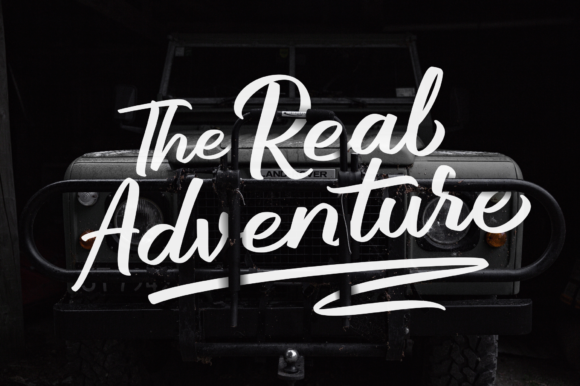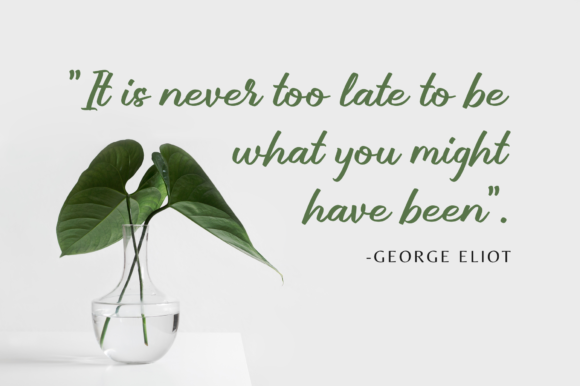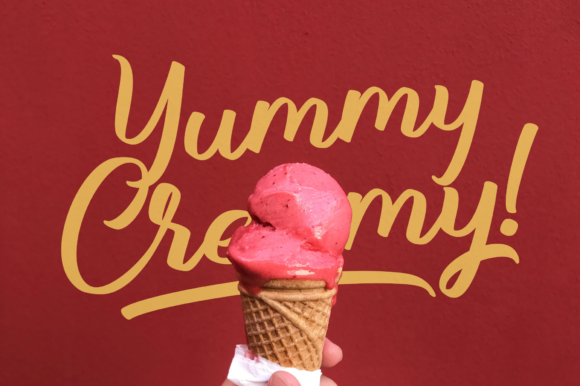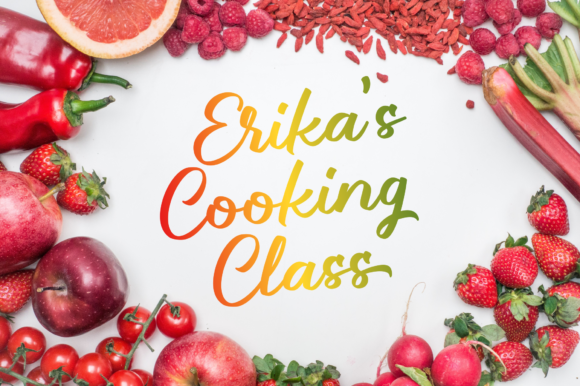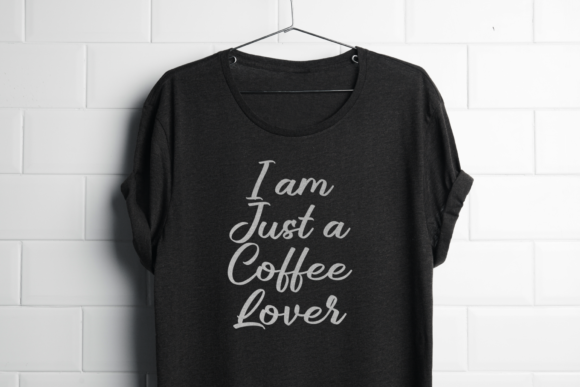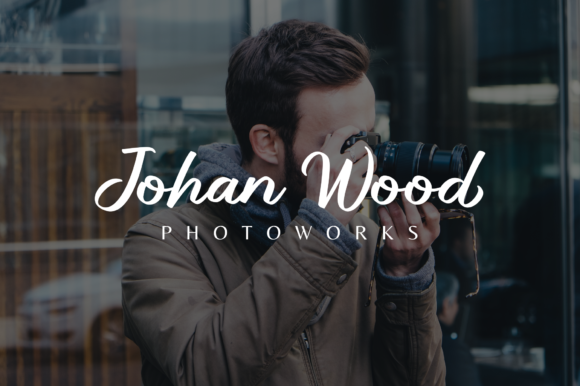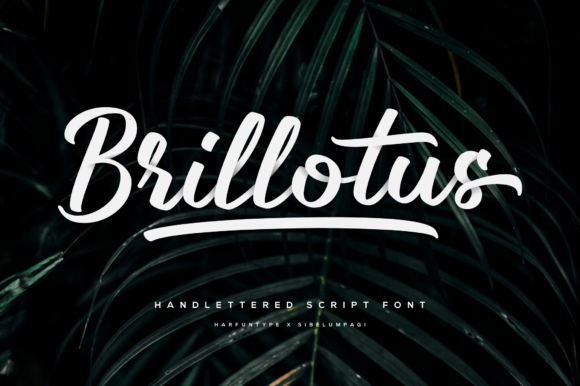
Introducing Brillotus Font: The Perfect Handwritten Touch for Your Designs
Are you tired of using the same old fonts in your designs? Do you want to add a personal touch that sets your work apart from the rest? Look no further than Brillotus Font, a stunning handwritten font that brings a unique and authentic feel to any design idea. In this article, we’ll dive into the features and benefits of Brillotus Font, and explore how it can elevate your designs to the next level.
Handwritten fonts have a way of adding a personal touch to any design. They evoke a sense of warmth, friendliness, and approachability that can be hard to achieve with more traditional fonts. Brillotus Font is no exception, with its beautiful, hand-crafted lettering that is sure to capture the attention of your audience. Whether you’re working on a branding project, a marketing campaign, or simply a personal craft project, Brillotus Font is the perfect choice for adding a touch of personality and whimsy.
What Sets Brillotus Font Apart
So what makes Brillotus Font so special? For starters, its unique and authentic feel sets it apart from more generic fonts. The lettering is carefully crafted to have a personal, hand-written feel that is both elegant and approachable. Additionally, Brillotus Font is highly versatile, making it suitable for a wide range of design applications. Whether you’re working on a logo, a poster, a website, or a social media graphic, Brillotus Font is sure to make a lasting impression.
Key Features of Brillotus Font
- Handwritten with love: Brillotus Font is carefully crafted by hand to give it a unique and personal feel.
- Authentic and elegant: The lettering is both elegant and approachable, making it perfect for a wide range of design applications.
- Highly versatile: Brillotus Font can be used for logos, posters, websites, social media graphics, and more.
How to Use Brillotus Font in Your Designs
- Create a stunning logo: Use Brillotus Font to create a unique and memorable logo for your brand.
- Add a personal touch to your marketing materials: Use Brillotus Font in your brochures, flyers, and other marketing materials to add a touch of personality and whimsy.
- Elevate your website design: Use Brillotus Font to add a touch of elegance and sophistication to your website.
- Make your social media graphics stand out: Use Brillotus Font to create eye-catching social media graphics that are sure to grab the attention of your audience.
Tips and Tricks for Getting the Most Out of Brillotus Font
Here are a few tips and tricks for getting the most out of Brillotus Font:
- Experiment with different colors and textures: Brillotus Font looks great in a variety of colors and textures. Experiment with different combinations to find the one that works best for your design.
- Use it sparingly: While Brillotus Font is beautiful, it can be overwhelming if used too much. Use it sparingly to add a touch of elegance and sophistication to your design.
- Pair it with other fonts: Brillotus Font pairs well with a variety of other fonts. Experiment with different combinations to find the one that works best for your design.
In conclusion, Brillotus Font is a stunning handwritten font that adds a unique and authentic touch to any design idea. With its beautiful, hand-crafted lettering and highly versatile design, Brillotus Font is perfect for a wide range of design applications. Whether you’re a designer, crafter, or simply someone looking to add a personal touch to your work, Brillotus Font is sure to exceed your expectations.